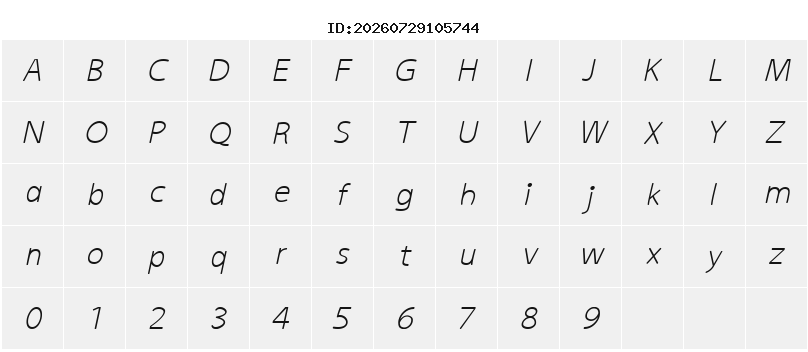
kiddySans Preview
• Font Name: kiddySans
• Font ID: ManuelViergutz: kiddySans Bold Italic: 2010
• Full Font Name: kiddySans Bold Italic
• PostScript Name: kiddySans-BoldItalic
• Designer: Manuel Viergutz
• Manufacturer: Manuel Viergutz
About kiddySans.ttf
kiddySans.ttf is a modern, elegant sans-serif font designed for ultimate readability and visual harmony. Perfect for branding, headlines, web design, and print materials.